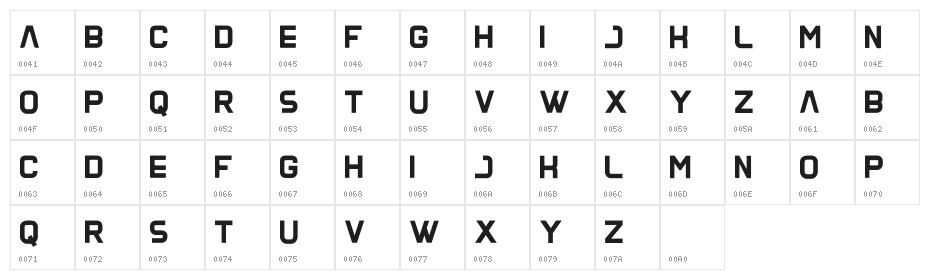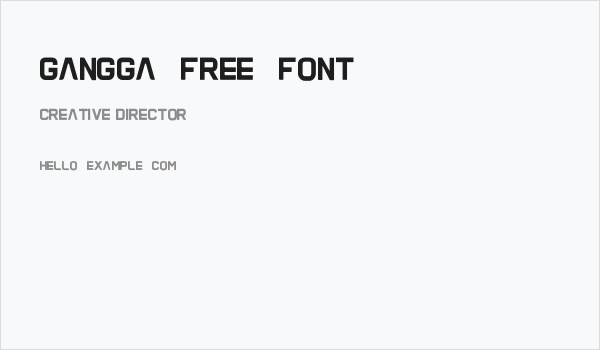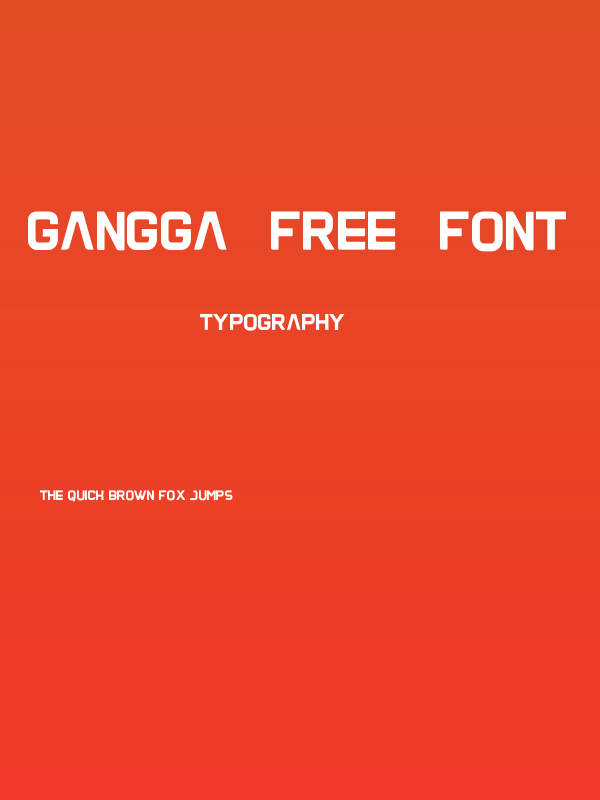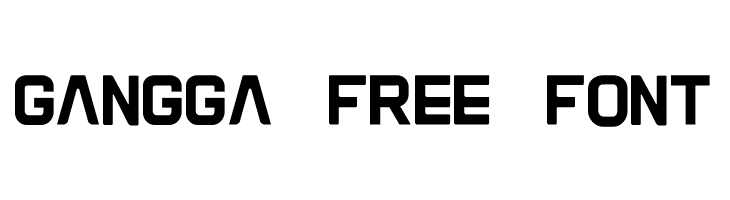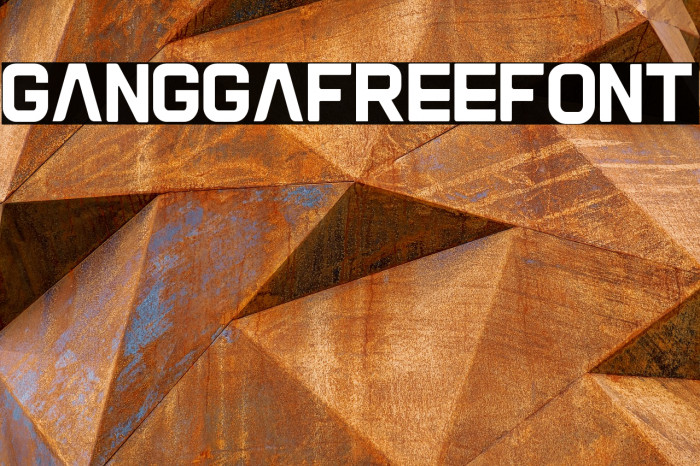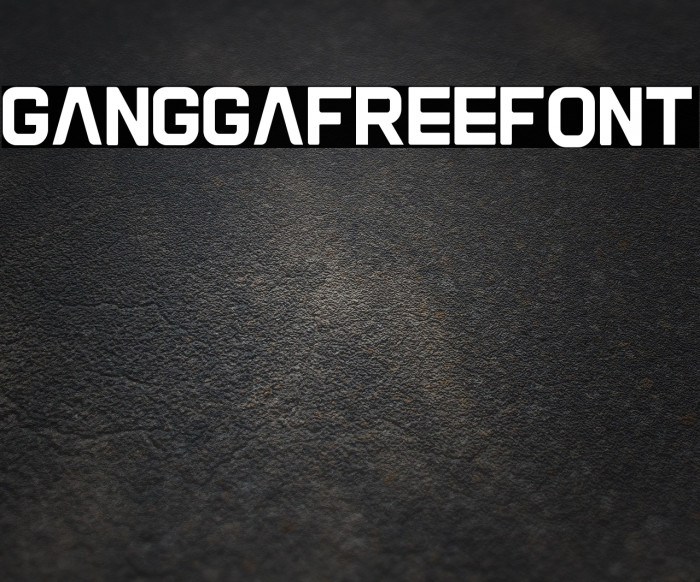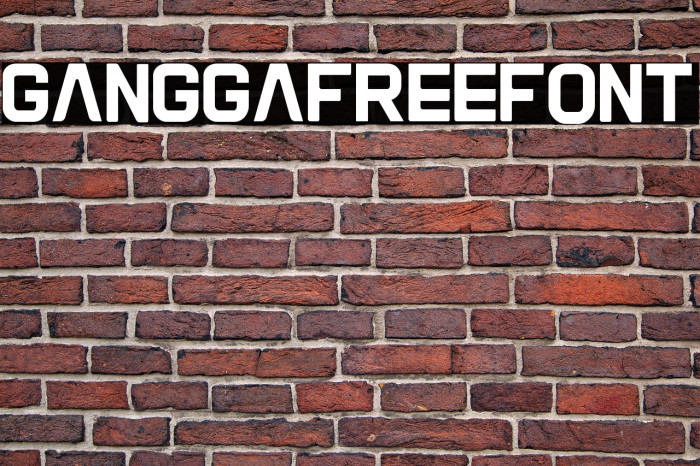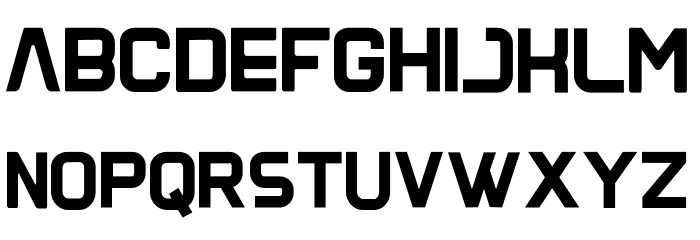
Gangga-Free-Font Font
This font features a bold and modern design with a geometric and angular style. The characters are constructed with straight lines and sharp angles, giving it a futuristic and tech-inspired appearance. The uppercase letters are uniform in height, creating a cohesive and structured look. The font's bold weight and strong presence make it suitable for impactful headlines and attention-grabbing designs. Its clean lines and lack of decorative elements emphasize clarity and readability, making it versatile for various design applications.
| Proposed Projects | Ideal for technology branding, futuristic posters, video game titles, and modern advertising campaigns. |
| Author | Fonts by Julieta Ulanovsky |